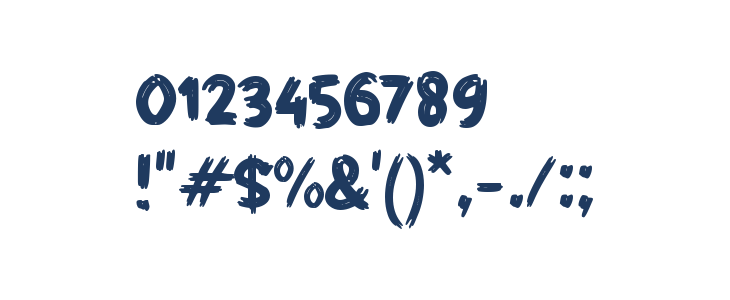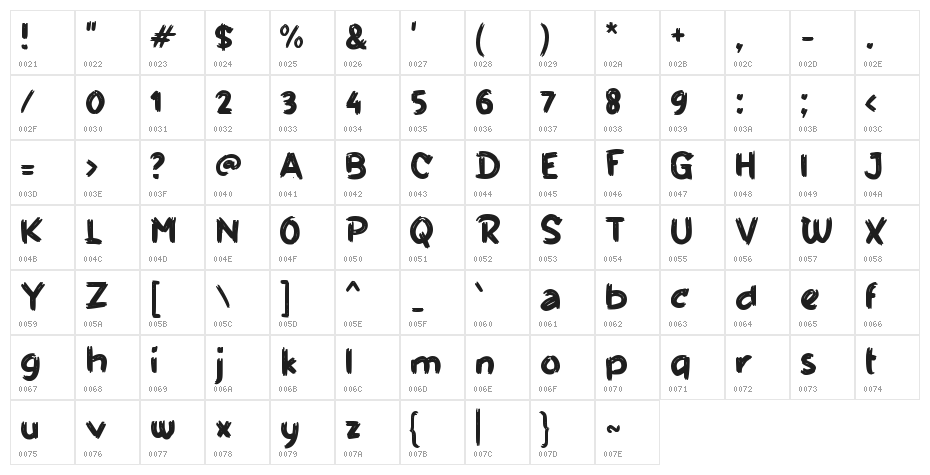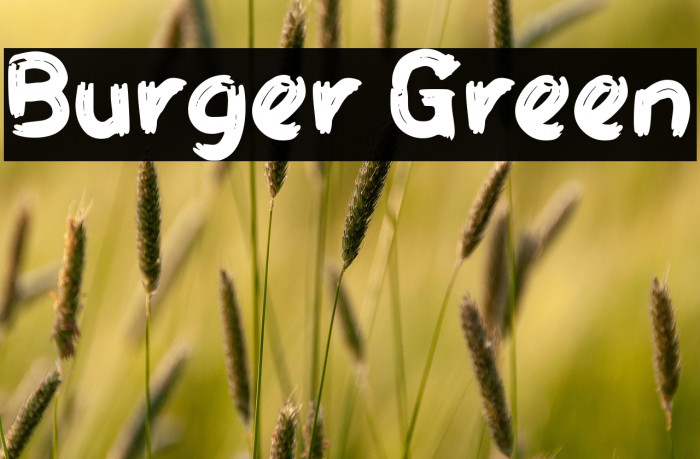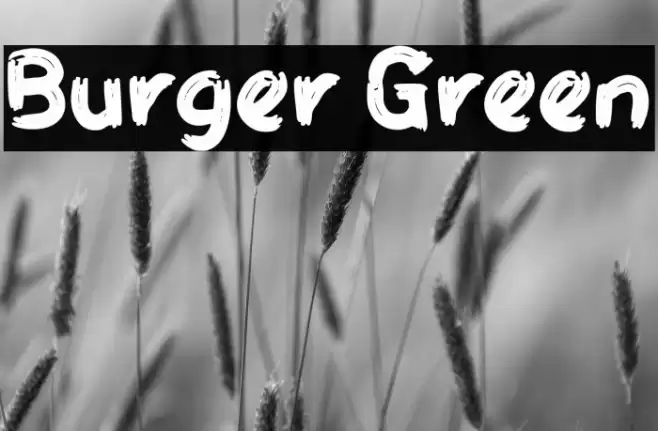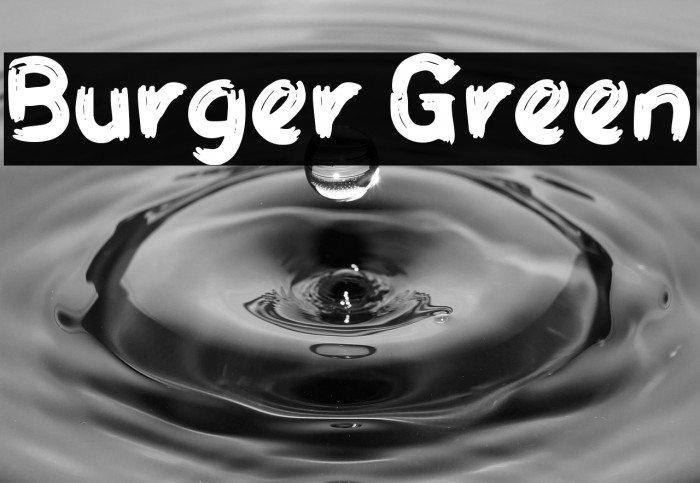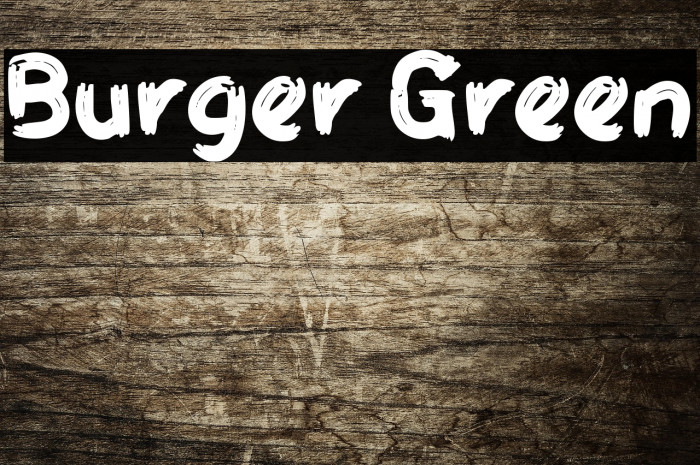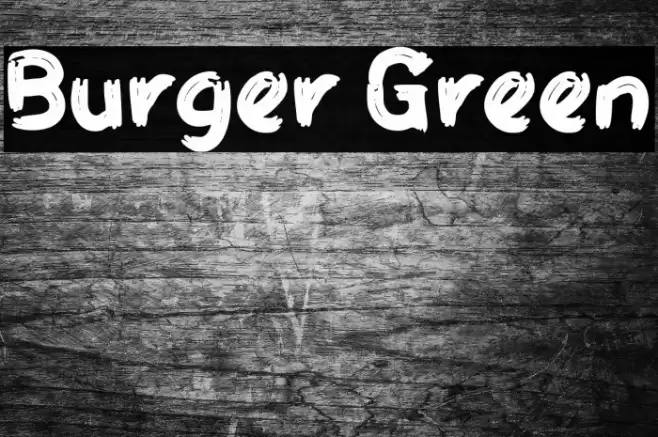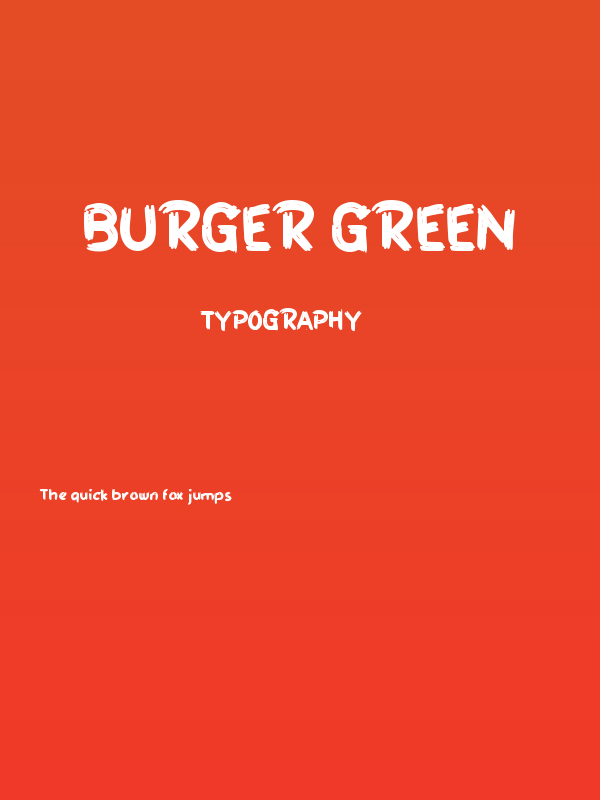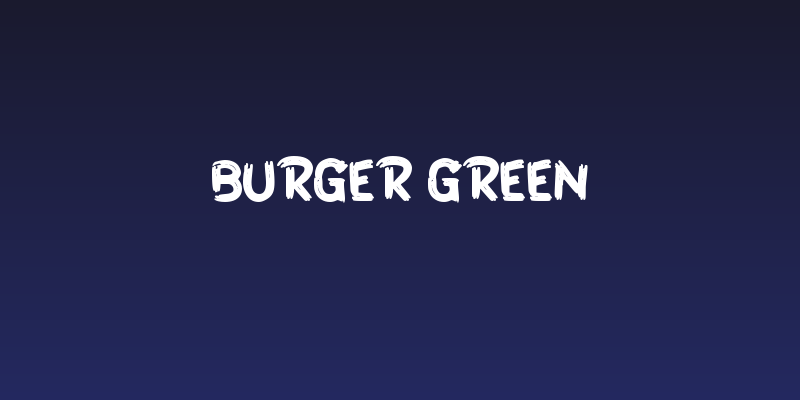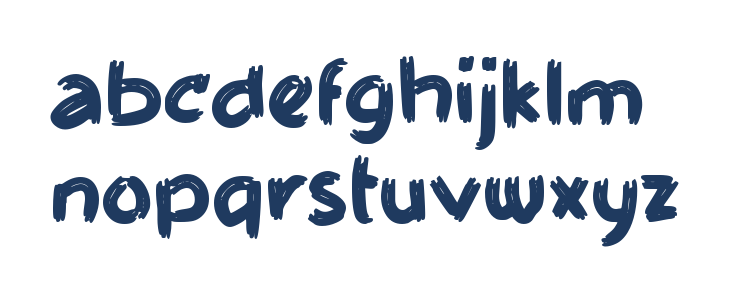
Burger Green Font
Burger Green Description
This font exhibits a bold, brush-like style with a playful and energetic appearance. The strokes are thick and uneven, giving it a hand-painted feel. The characters have a slightly irregular baseline, adding to its casual and dynamic nature. The uppercase and lowercase letters maintain a consistent style, with rounded edges and a sense of movement. Numbers and special characters follow the same design, ensuring uniformity across all elements. This font is ideal for projects that require a lively and informal touch, such as posters, branding, and creative designs.
| Proposed Projects | Ideal for posters, branding, creative designs, and any project needing a lively, informal touch. |